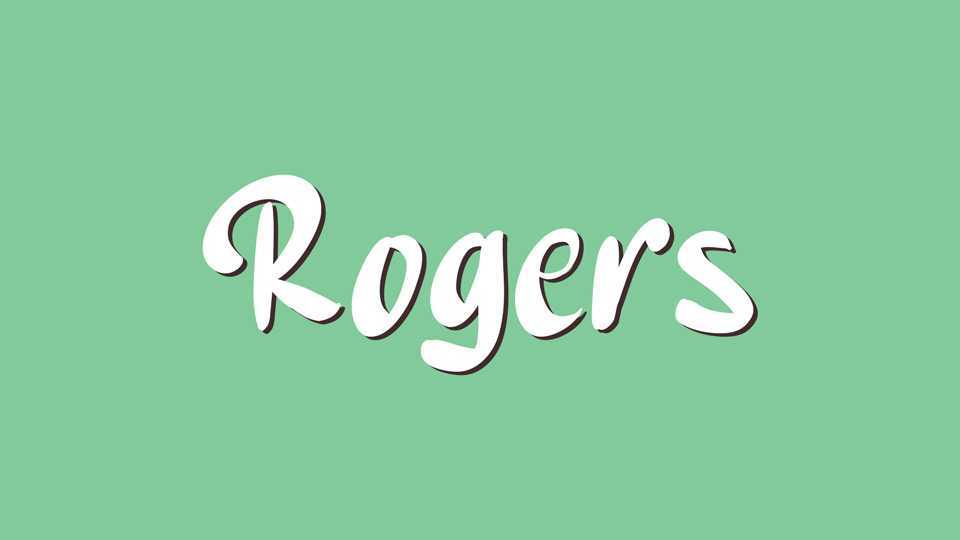
Download Rogers font, a smooth, natural handwritten typeface. With simple and organic lines, Rogers font will bring your creative ideas to life with a naturally beautiful look.